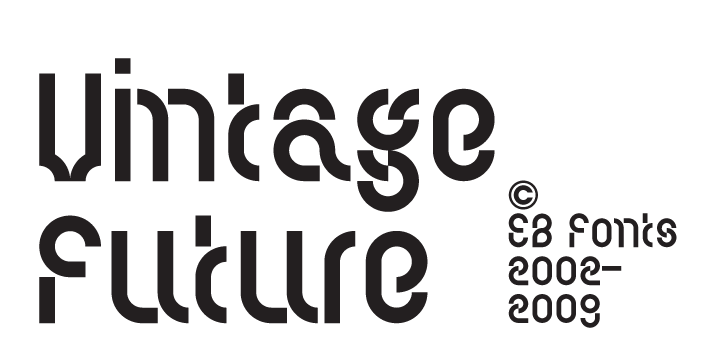
EB Vintage Future™
from Fenotype
Designed by: Erik Jarl Bertell
Designed when: 2009
Contained in Category: Decorative & Display
Design owned by: Fenotype
EB Vintage Future
Encrypted messages from outer space? At the first glance, Vintage Future may seem utterly incomprehensible – mere gibberish.
Beneath the surface level, it makes for an unexpectedly legible face.
Use it with caution however – it is rumored that text typed with Vintage Future may transmit secret subliminal messages.